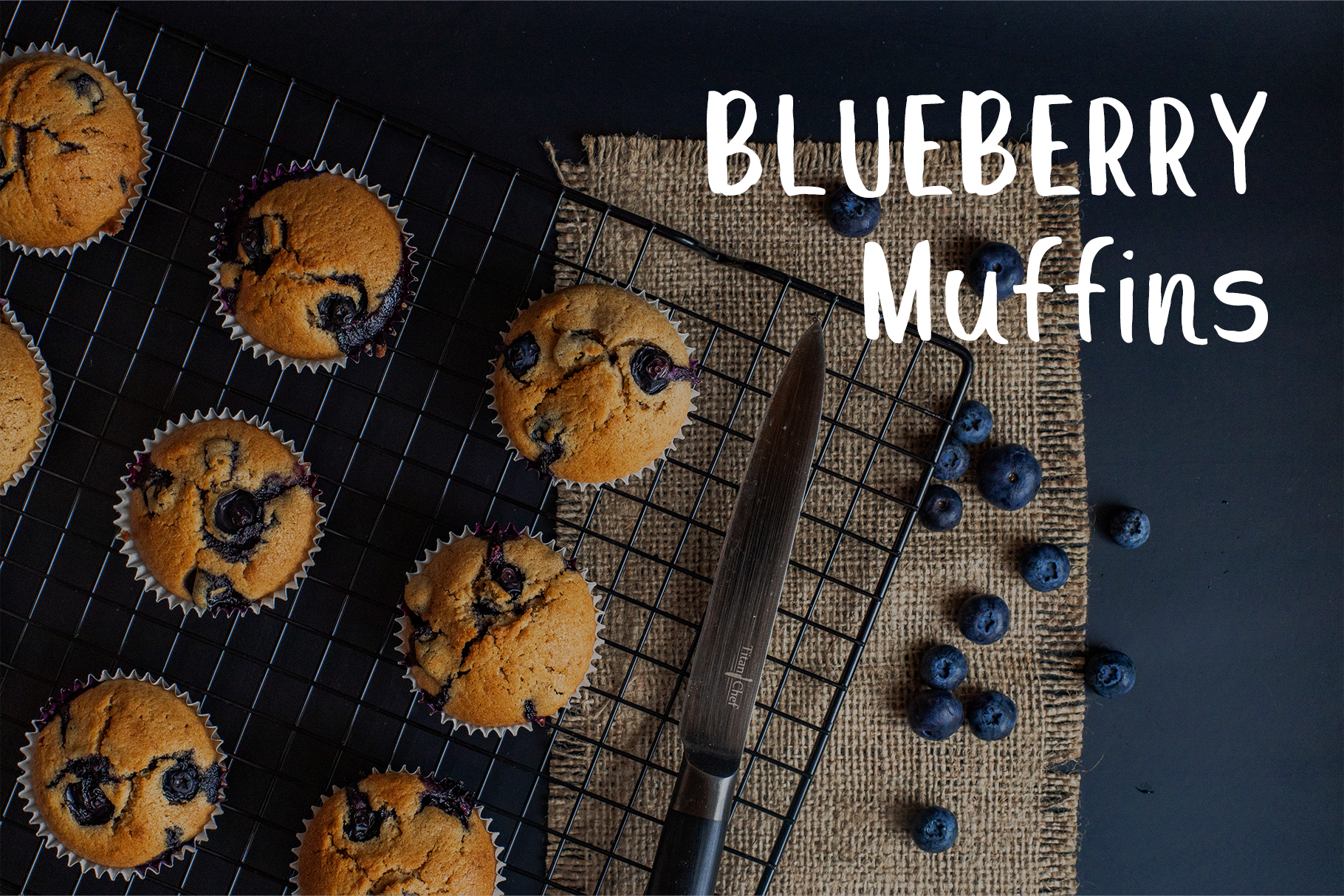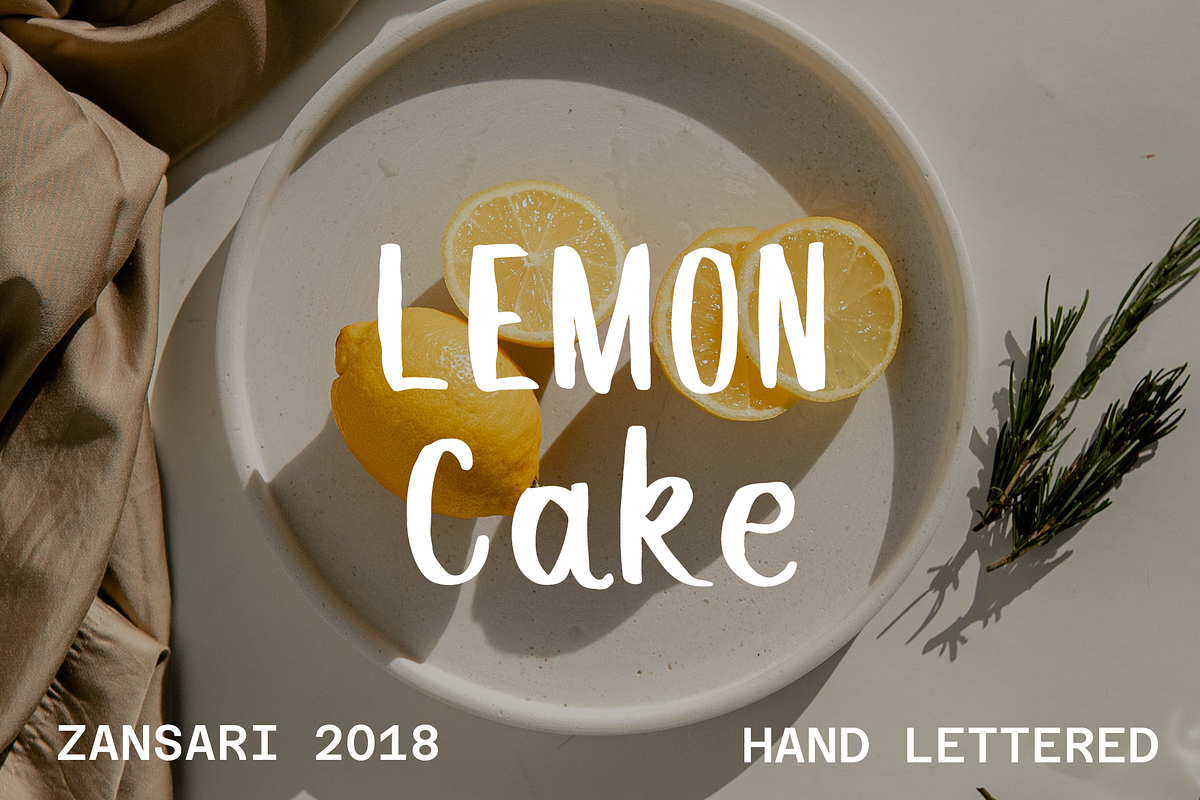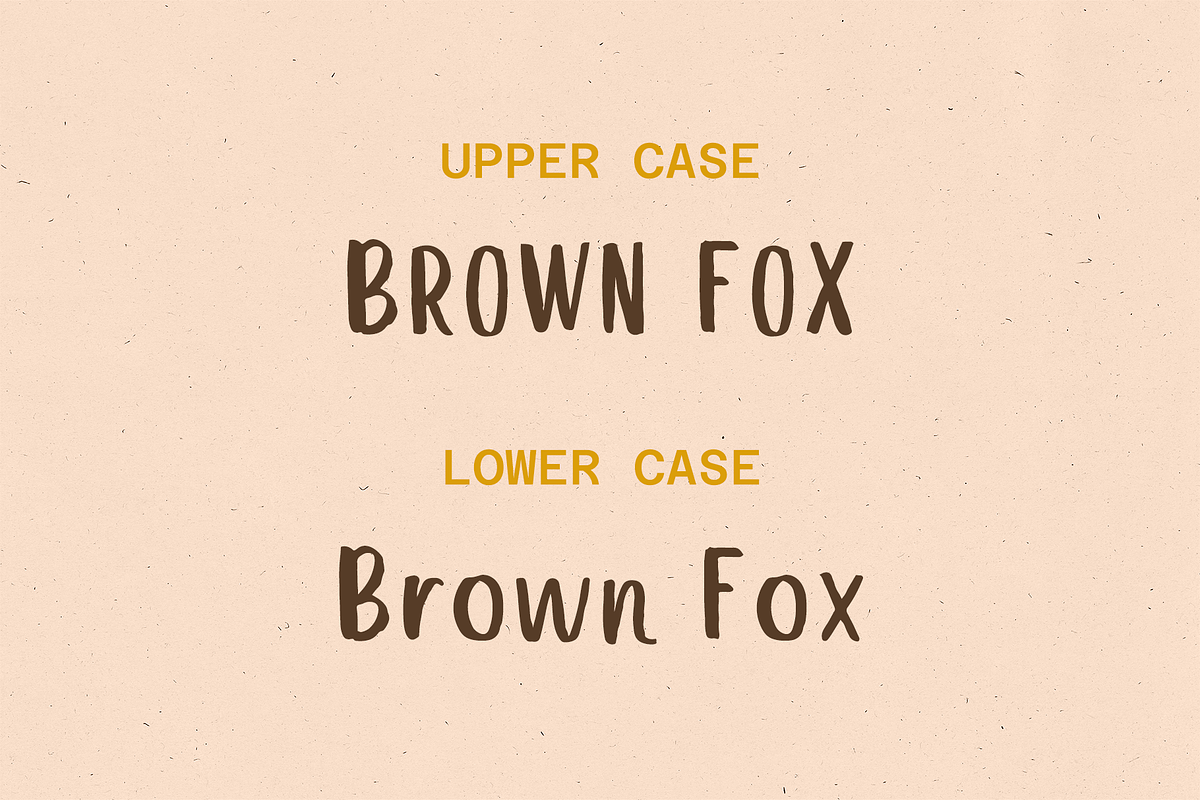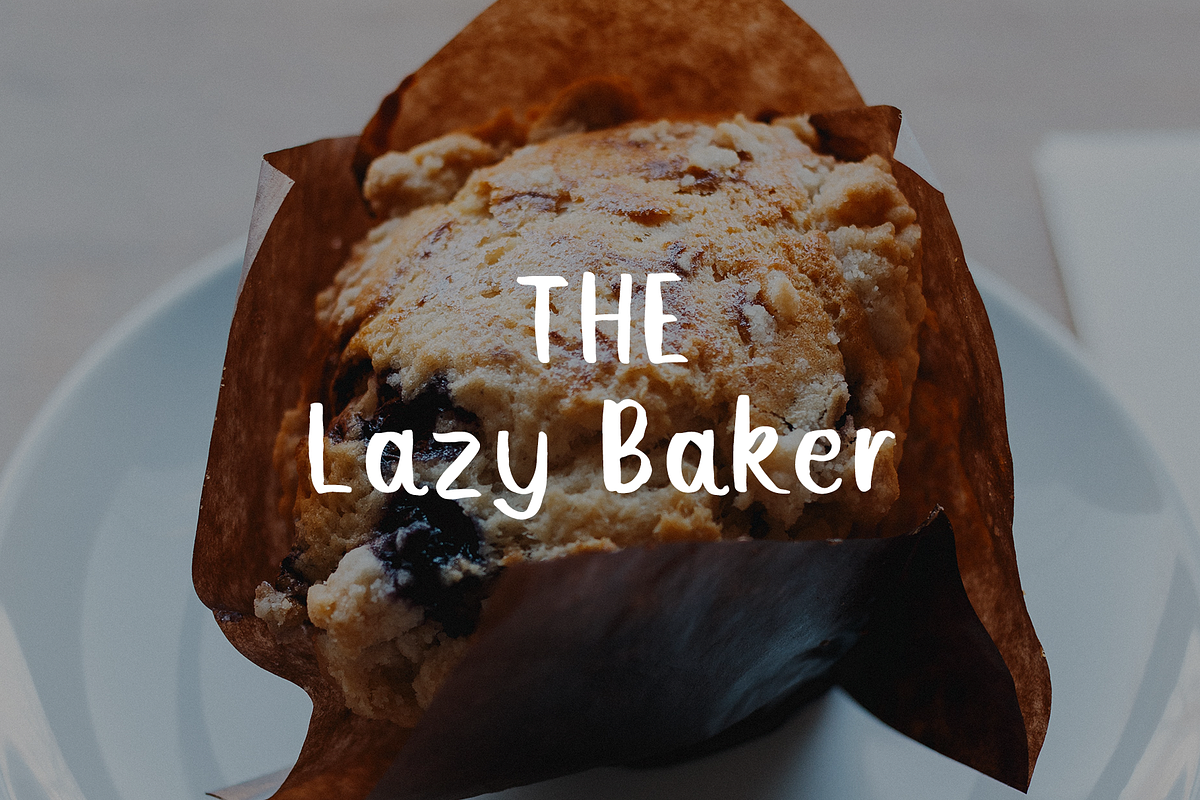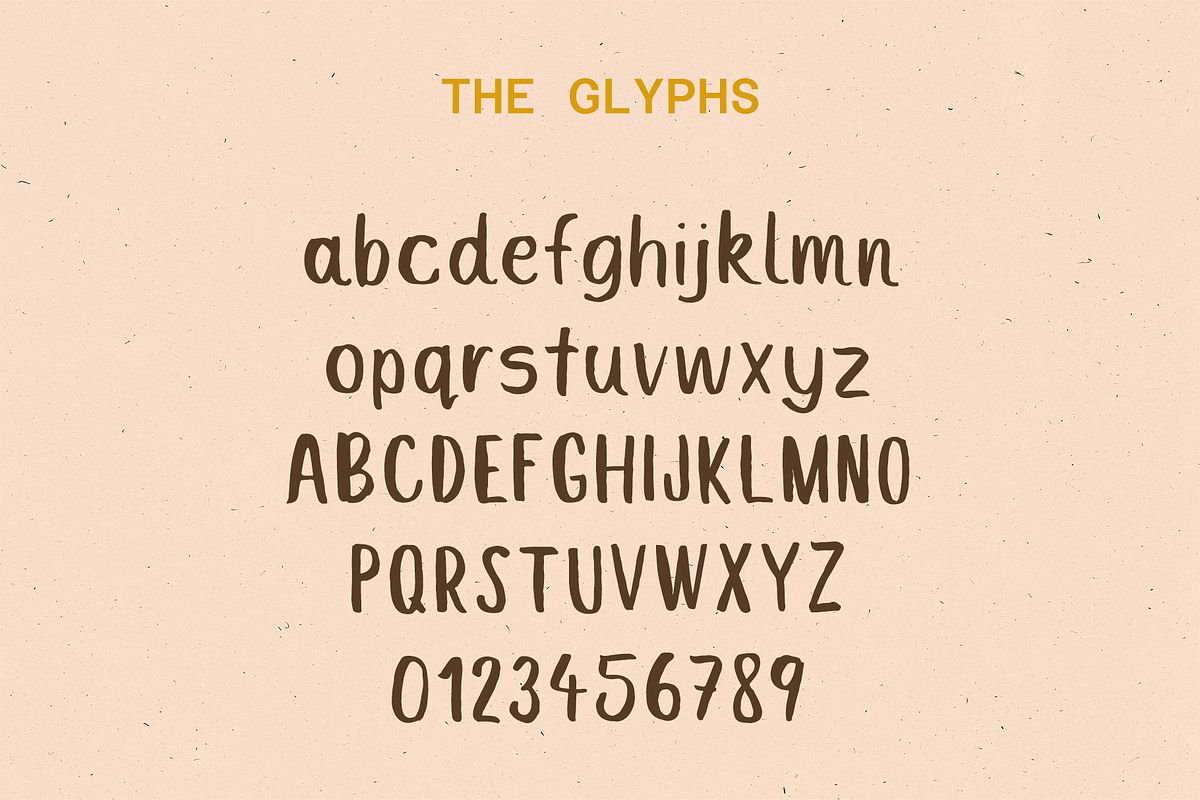
Lemon cake brush font
Lemon cake brush font is a relaxed and imperfect styled font. The characters were hand painted, then scanned and vectorised into a digital font file. Lemon cake brush font was designed by Zansari font foundry in Auckland, New Zealand
This font would be perfect for advertisements, logos and crafts like quote posters. This has also been quite a popular blog font